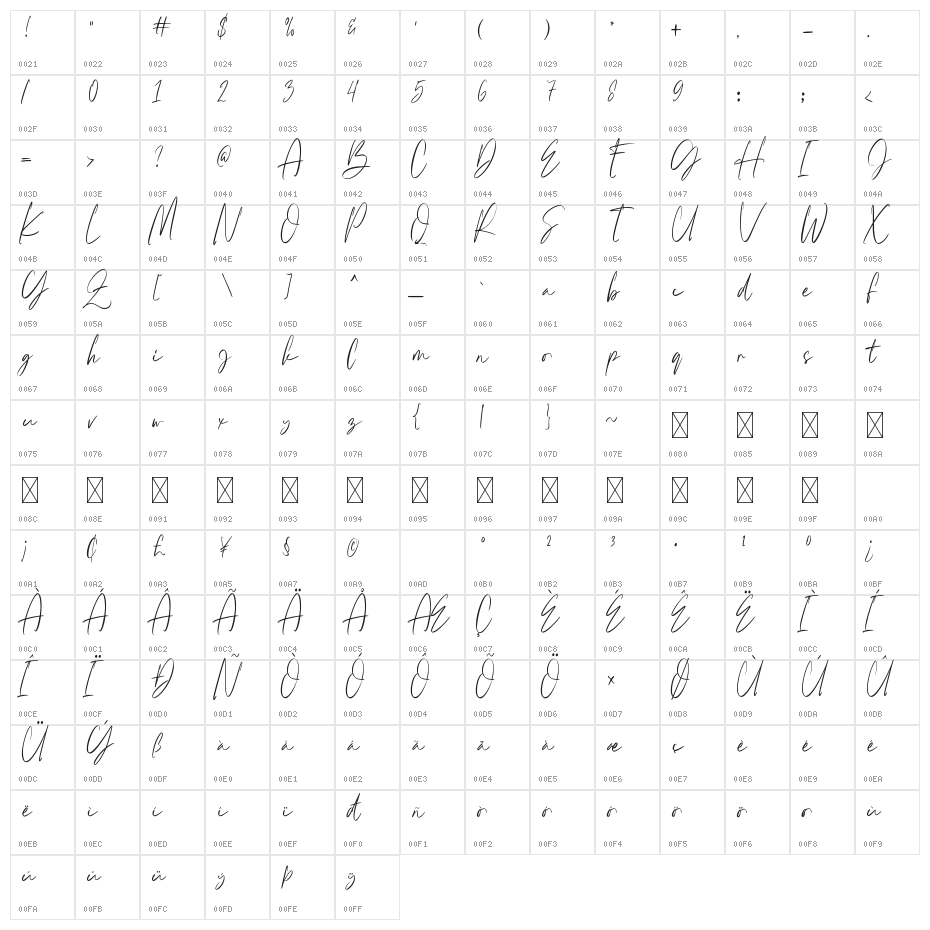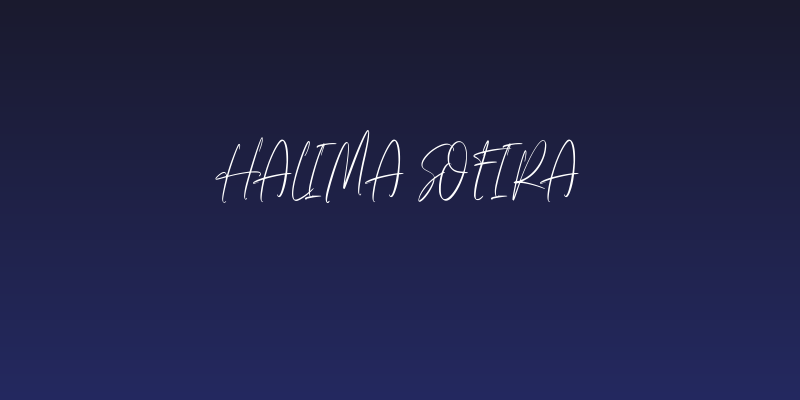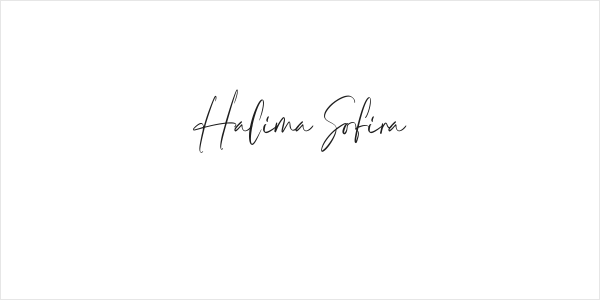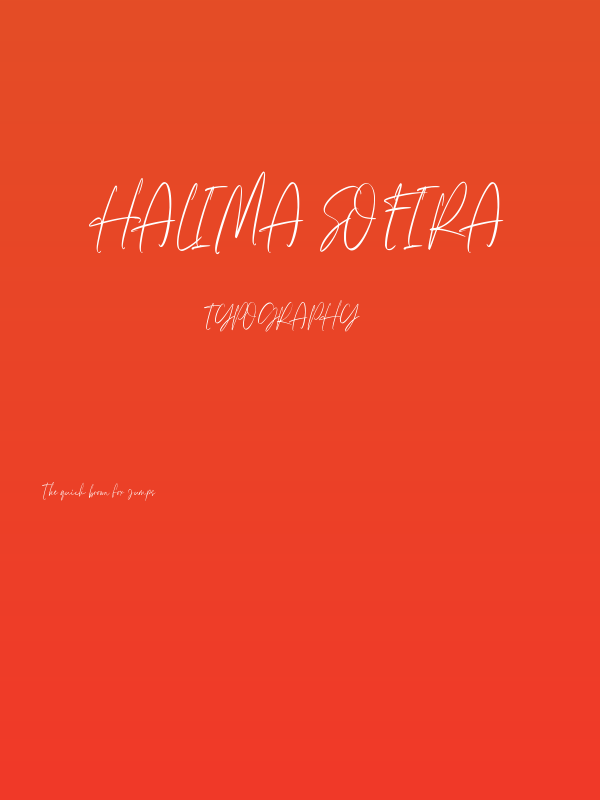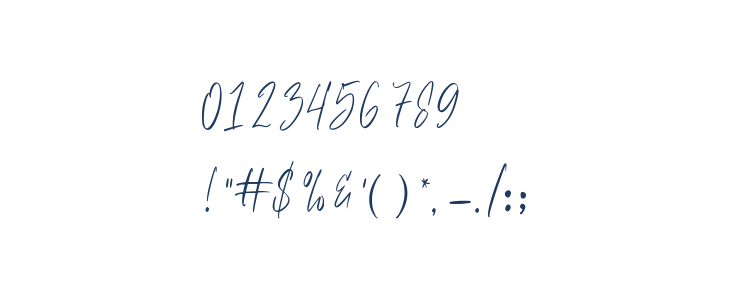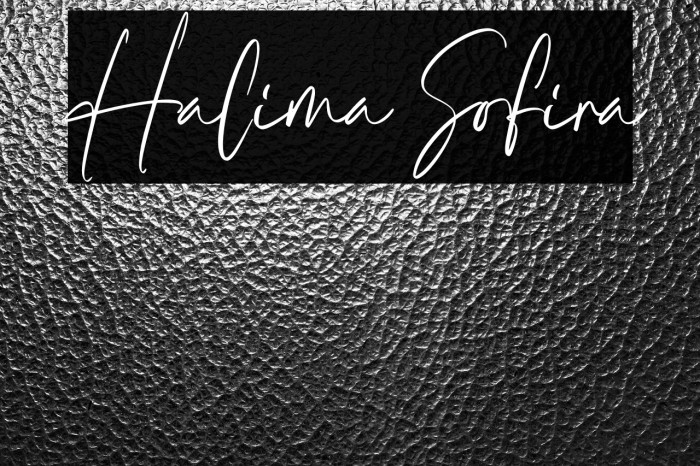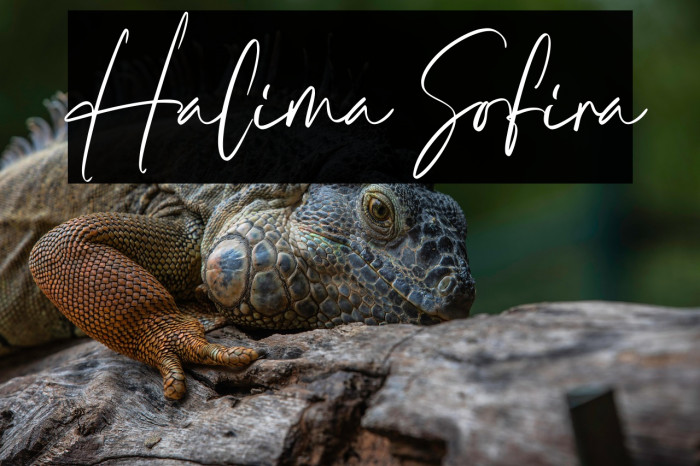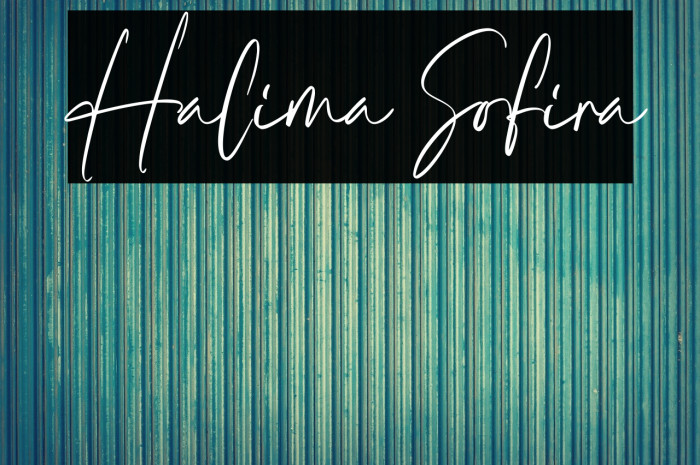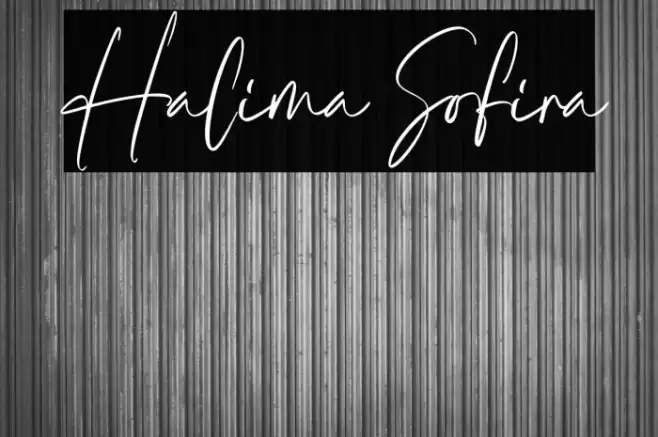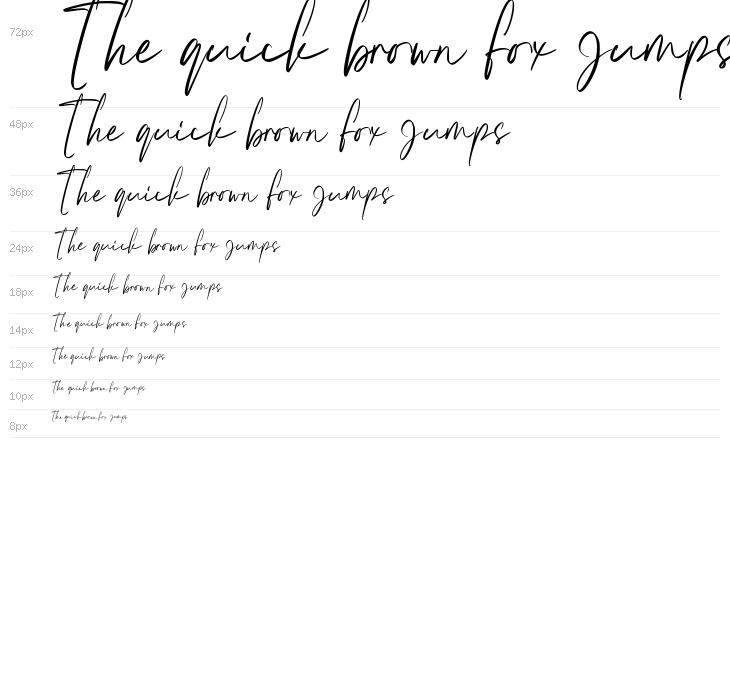
Halima Sofira Font
Halima Sofira Description
This font features a flowing, cursive style that mimics elegant handwriting. Each character is crafted with smooth, continuous strokes, giving it a natural and organic feel. The uppercase letters are tall and slightly slanted, while the lowercase letters maintain a consistent flow with gentle curves. The numerals and special characters are designed to complement the overall script style, maintaining the same fluidity and grace. This font exudes a sense of sophistication and personal touch, making it ideal for projects that require a handwritten aesthetic.
| Overall Style | Elegant, Handwritten |
| Use Case | Logos, Invitations, Personal Branding |
| Proposed Projects | Ideal for wedding invitations, personal branding, greeting cards, and elegant stationery. |